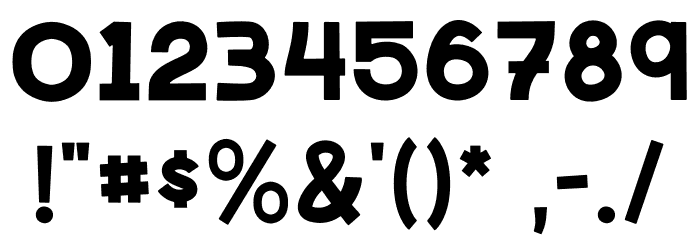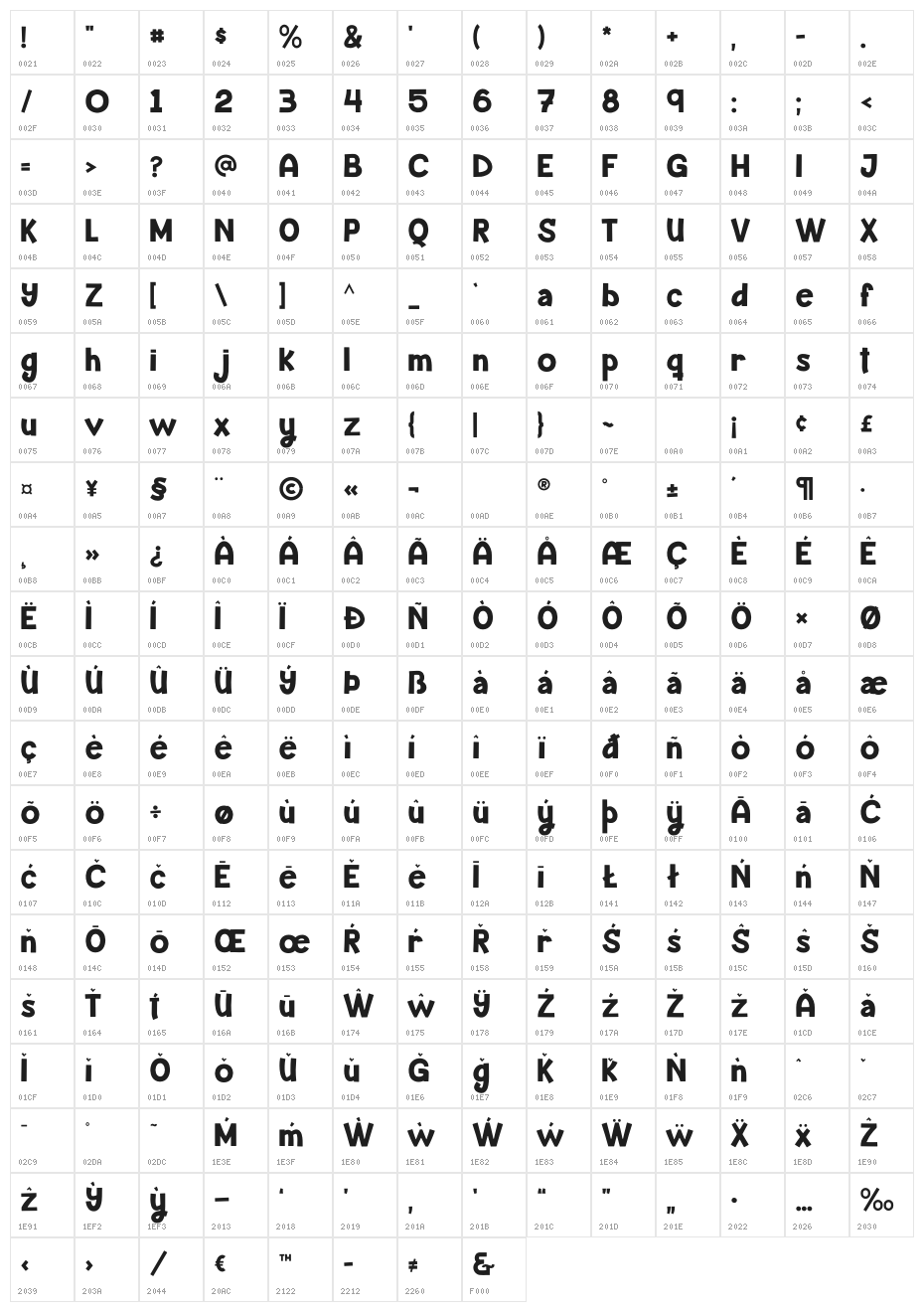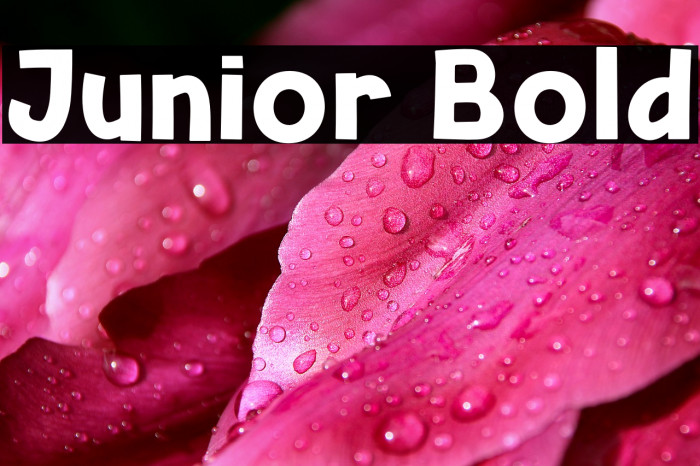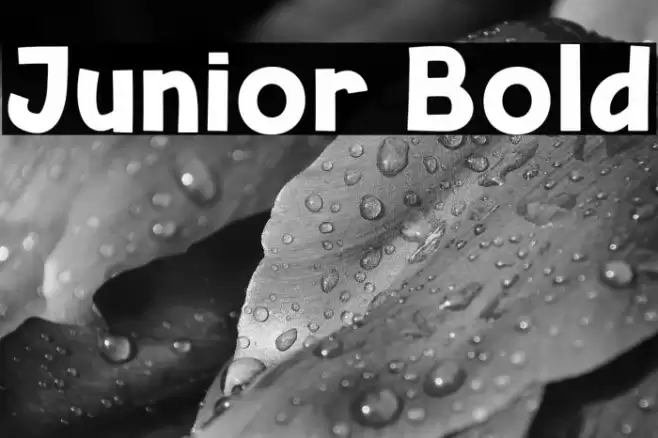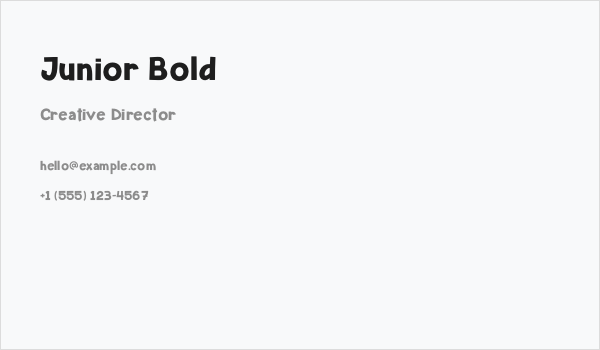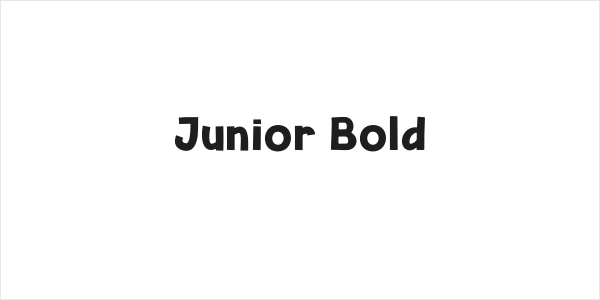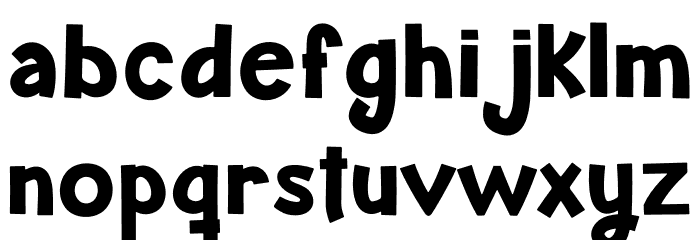
Junior Bold Font
Junior Bold Description
This font features bold, rounded characters with a playful and friendly appearance. The uppercase letters are uniform in height, while the lowercase letters maintain a consistent baseline, giving the font a cohesive look. The numbers are clear and easily distinguishable, making them suitable for various applications. Special characters are well-integrated, maintaining the overall style. The font's boldness and rounded edges make it approachable and ideal for projects that require a fun and engaging typeface.
| Proposed Projects | Ideal for children's books, playful branding, posters, and educational materials. |